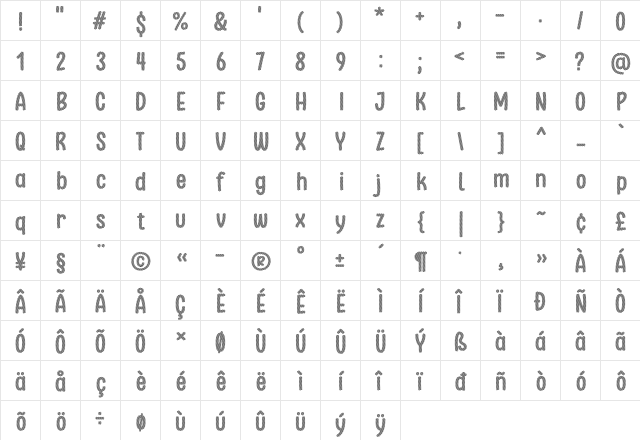
Stripe October Seven Regular
| Foundry | 7NTypes |
| Designer | Situjuh Nazara |
Design Context for Stripe October Seven Typeface
Stripe October Seven is a composed and adaptable typeface that performs quietly and consistently across a wide range of design contexts.